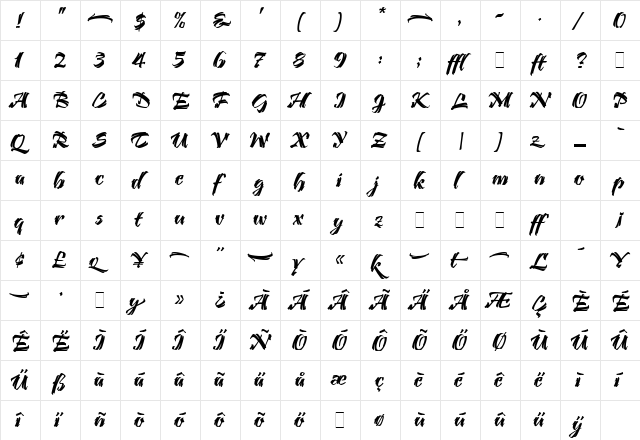
Bendigo Regular
Design Context for Bendigo Typeface
Bendigo is a composed and adaptable typeface that performs quietly and consistently across a wide range of design contexts.